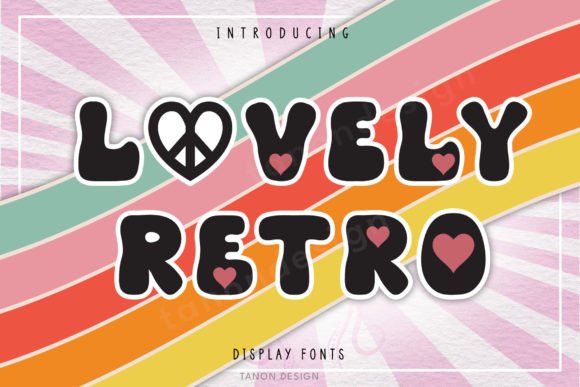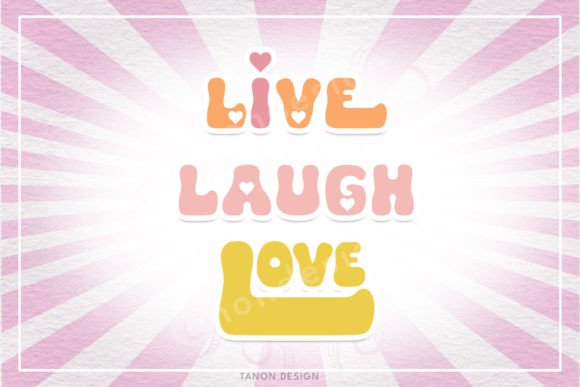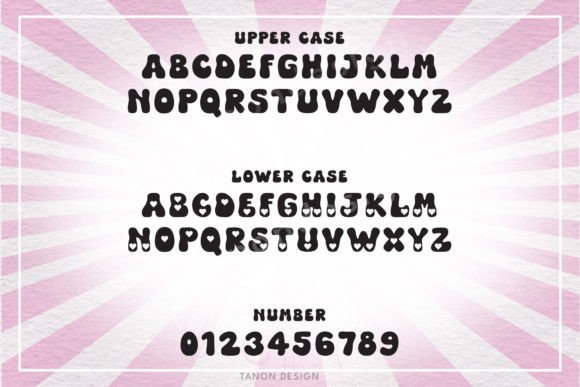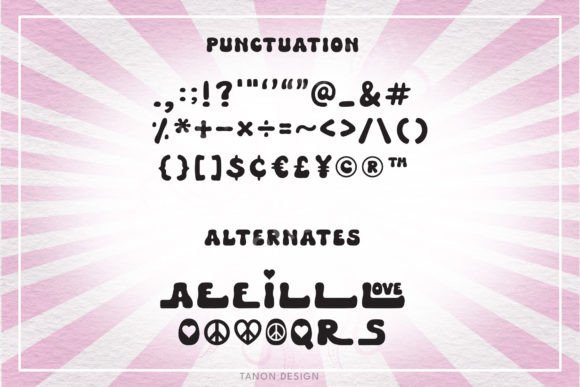
Lovely Retro Font
About the Lovely Retro Font
Presenting Lovely Retro Font, a unique and stylish typeface that will make your work stand out. Introducing “Lovely Retro” fonts a beautiful vintage retro Valentine font. It will look fantastic on all your project designs including t-shirt designs, mug designs, digital designs, crafts, cards, and any projects!
Lovely Retro’s playful, slightly quirky personality makes it ideal for headlines, short text blocks on posters, packaging for vintage-inspired products, or branding for businesses with a retro aesthetic. It’s less suitable for body text or UI elements where high readability is paramount; the stylistic flourishes can hinder legibility in extended use.
Pairing it with a clean sans-serif like Open Sans for body copy creates a strong contrast and balanced feel, while a more geometric sans-serif adds a modern twist. For a more vintage-inspired look, consider pairing it with a classic serif font like Garamond or a script font with a similar level of detail, but avoid pairings with overly heavy or overly thin fonts.
Its inherent charm works particularly well for projects aiming for a nostalgic yet fresh feel. Think handcrafted goods, small businesses focusing on artisanal products, or events with a retro theme.
Lovely Retro Font Example